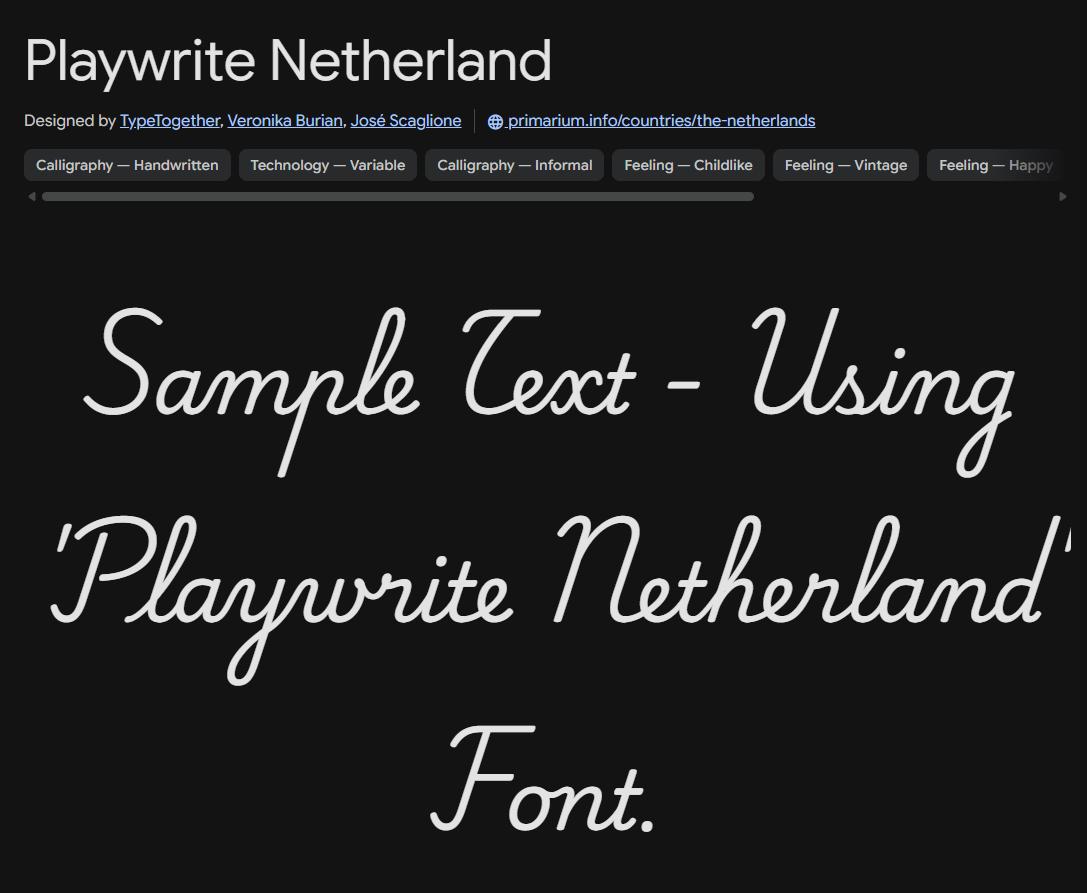
Playwrite Netherland, meticulously engineered by Veronika Burian and José Scaglione of TypeTogether, represents a sophisticated synthesis of pedagogical standards and modern OpenType technology through its single-axis variable font architecture. By leveraging smooth interpolation across a dedicated weight axis, the typeface translates the specific ductus and letterform requirements of Dutch handwriting education into a high-performance digital tool. This variable format ensures that the font maintains its structural legibility and stroke consistency across various resolutions, offering a unique technical solution for educational publishing where the transition from manual script to scalable vector graphics necessitates a precise, fluid control over typographic density and weight.
The Playwrite Netherland font family serves as a sophisticated digital artifact that bridges the gap between traditional primary education pedagogy and modern variable technology, offering a dynamic typographic solution rooted in Dutch handwriting standards. This informal calligraphic typeface utilizes a robust variable axis to modulate its weight and slant, effectively capturing a rugged yet active energy that resonates with a vintage, tactile sense of ink on paper. By synthesizing the happy and playful spontaneity of childlike penmanship with precise handwritten geometry, the typeface achieves a unique semantic balance that feels both nostalgic and functionally contemporary. Its design philosophy emphasizes a fluid, informal calligraphic rhythm, ensuring that every character reflects a sense of movement and discovery, ultimately transforming the rigid structures of historical cursive into a versatile, high-performance font family optimized for modern educational and creative environments.
Playwrite Netherland is fundamentally ill-suited for high-density transactional interfaces and critical medical labeling where rapid lexical processing and neutral accessibility are mandatory. Rooted in the pedagogical "Leren Schrijven" cursive models of Dutch primary education, its architecture utilizes complex inter-letter ligatures and rhythmic stroke fluctuations that introduce visual noise in micro-typography, hindering the glanceable legibility required for industrial safety protocols. While the variable axis by TypeTogether allows for weight fluidity, the script's inherent humanist terminals and high-frequency connectivity can fail WCAG accessibility standards for low-vision users on low-resolution displays, making it a poor choice for corporate legal charters or high-stakes financial data visualization where geometric terminal stability and distinct character recognition are essential for preventing misinterpreted data strings.
This typeface excels in designs that require an organic, handwritten aesthetic, such as personal branding or vintage-themed layouts. Its fluid stroke modulation and variable font axes make it particularly effective for responsive web environments that demand a high degree of personalization.
Due to its intricate cursive connections and variable widths, this font is not recommended for dense blocks of body copy. Typographic legibility tests indicate that script faces like this increase cognitive load when used for extended reading, often exceeding the 50-75 character per line readability threshold.
It performs exceptionally well in large headlines where the detail of its hand-drawn curves can be appreciated by the viewer. The font's high x-height and distinct glyph terminals provide a strong visual anchor, maximizing display impact within a hero section's viewport.
Clean, geometric sans-serifs provide a necessary structural contrast to the fluid, rhythmic nature of this script face. Utilizing a monospaced font as a secondary face creates a compelling juxtaposition between systematic grid alignment and organic Bezier curve variation.
It is a strong choice for brands seeking a friendly, artisanal identity that emphasizes a human-centric approach. Designers must evaluate the vector path complexity, as the intricate anchor point distribution in script fonts can affect scalability and rendering across different rasterization engines.
Legibility tends to decrease at smaller point sizes because the thin connecting strokes and descenders may blur or disappear. Sub-pixel rendering challenges arise at sizes below 14px, where the font's internal counter-spaces can collapse and negatively impact the overall reading speed.
Its decorative nature can pose challenges for users with visual impairments or dyslexia who rely on high character recognition. To comply with WCAG 2.1 guidelines, developers should ensure a high contrast ratio and avoid using this face for critical instructional UI elements or navigation labels.
It is highly effective for print applications like invitations, brochures, and packaging where a tactile, personal feel is desired. When preparing files for offset printing, the fine stroke weights require careful ink density management to prevent "plugging" in the tighter loops of the glyphs.
This font is specifically designed to model local handwriting styles, making it an excellent tool for primary education materials. By adhering to the Dutch Primary School (Basislijn) standards, the typeface provides a direct pedagogical link between digital letterforms and motor-skill development in students.
It adds a stylish, authentic touch to social media content, helping posts stand out in crowded, algorithm-driven feeds. Its effectiveness is amplified when utilized in high-resolution PNG formats, ensuring the anti-aliasing of its complex curves remains sharp across various mobile screen densities.